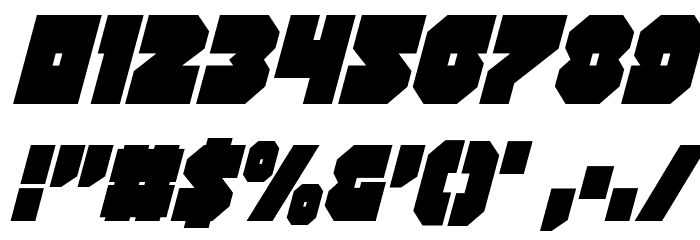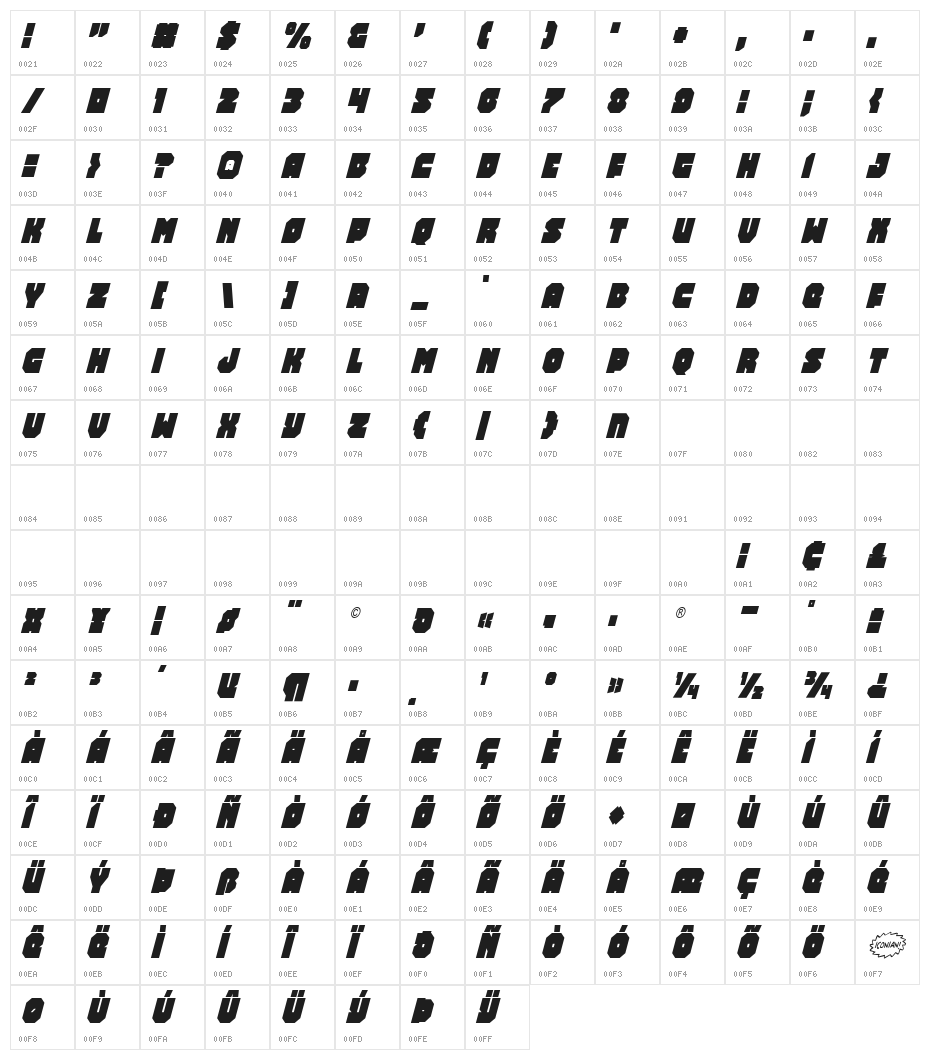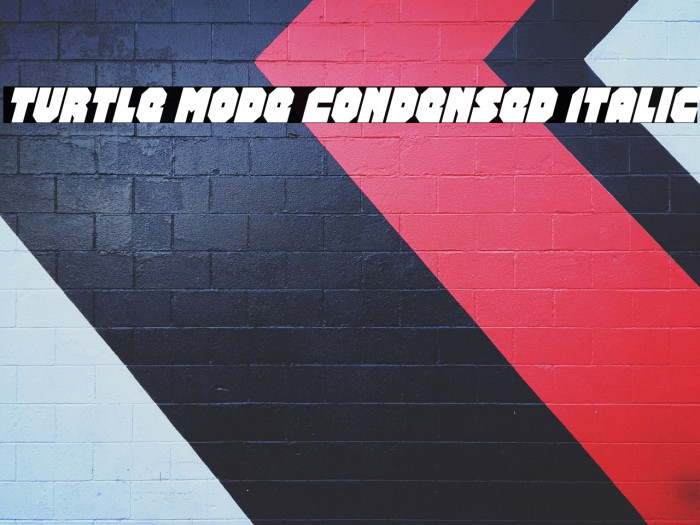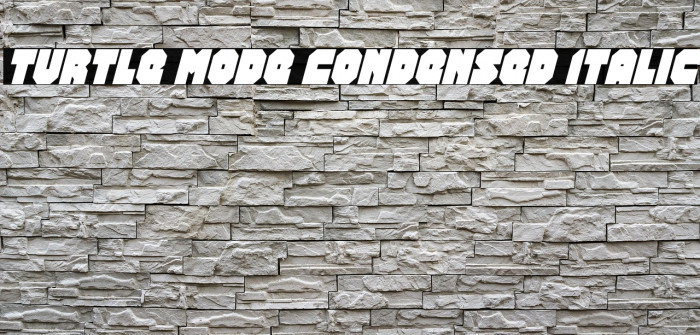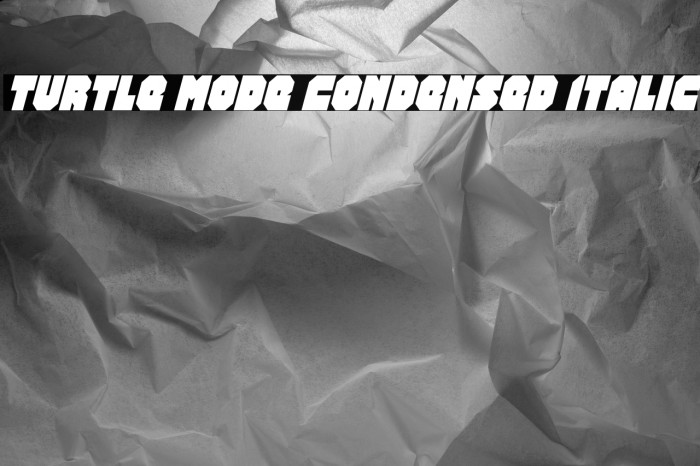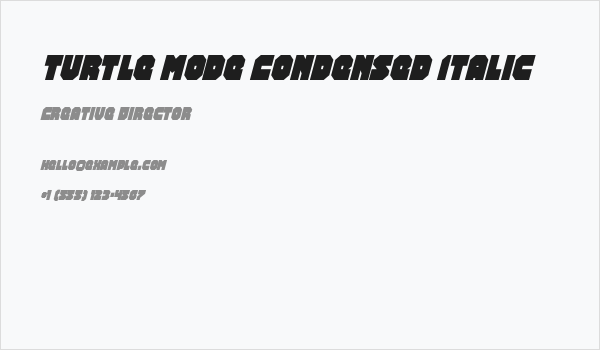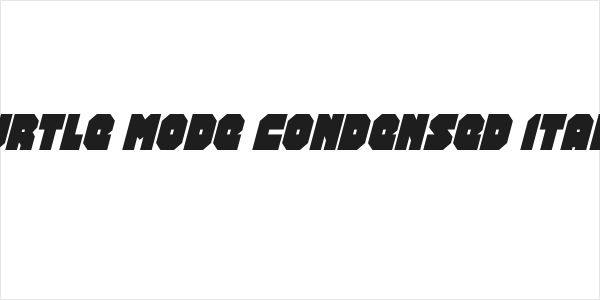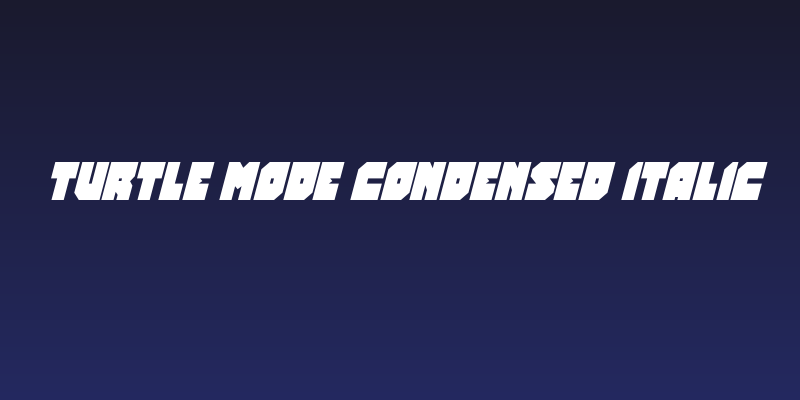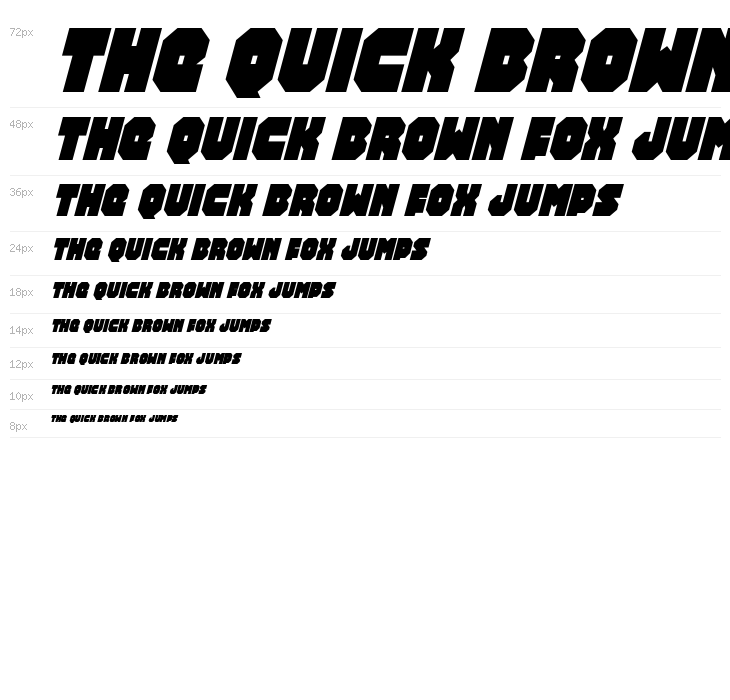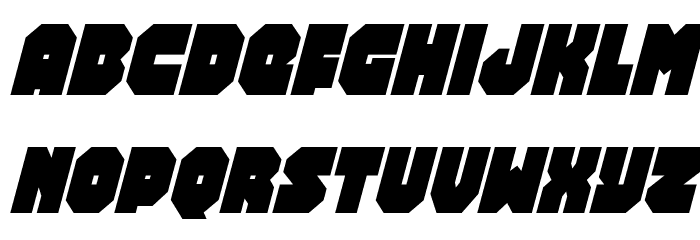
Turtle Mode Condensed Italic Font
Turtle Mode Condensed Italic Description
This font features a bold, geometric design with a distinct italic slant, giving it a dynamic and forward-moving appearance. The characters are condensed, maximizing space efficiency while maintaining readability. The sharp angles and thick strokes create a strong visual impact, making it suitable for attention-grabbing headlines or titles. The uniformity in stroke width and the angular design contribute to a modern and edgy aesthetic, ideal for projects that require a bold statement. The font includes a full set of uppercase and lowercase letters, numbers, and a variety of special characters, ensuring versatility in usage.
| Proposed Projects | Ideal for use in branding, posters, sports team logos, and any design requiring a bold, modern look. |